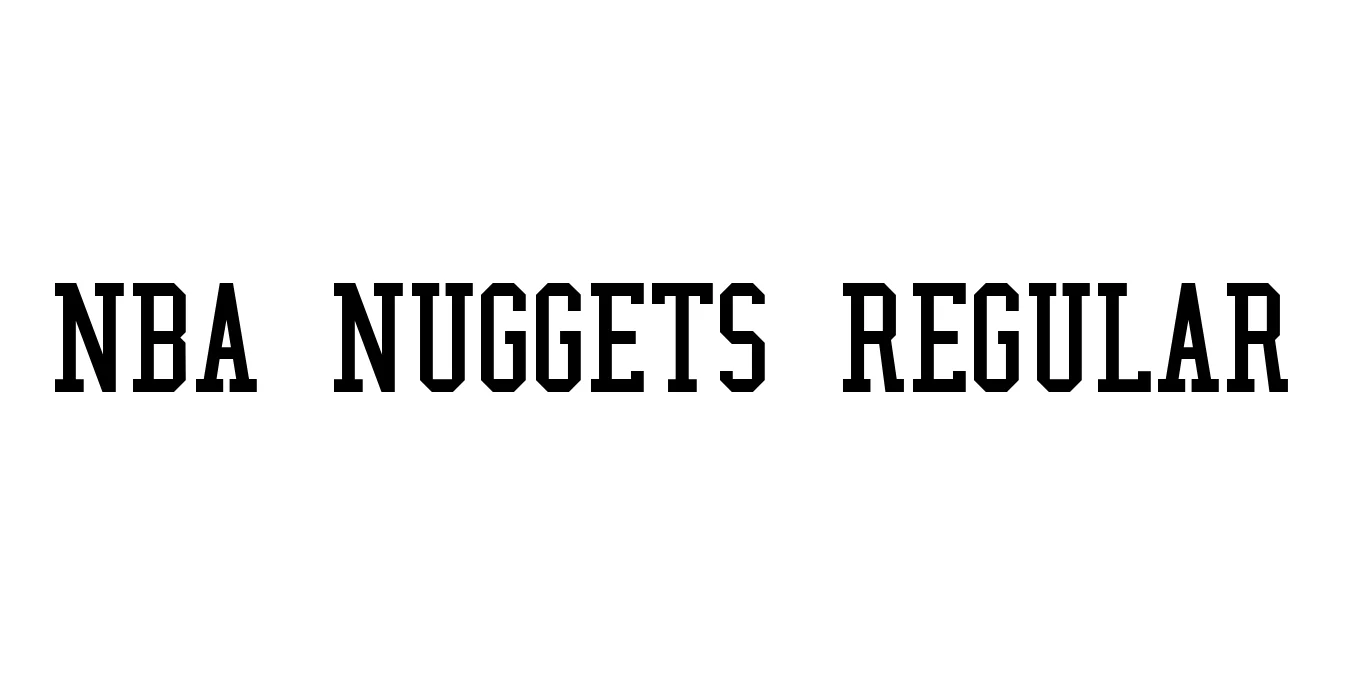
NBA Nuggets Regular
Designed by Unknown (Fan-made recreation)
| Font Name | NBA Nuggets |
| Category | Display / Sports |
| Designer | Unknown (Fan-made recreation) |
The NBA Nuggets Regular font is a custom display typeface inspired by the modern branding and visual identity of the Denver Nuggets professional basketball team. This font captures the rugged, western-inspired aesthetic of the Mile High City, featuring sharp, chiseled slabs and bold, geometric forms that reflect the team's iconic pickaxe and mountain motifs. It is designed to evoke a sense of strength and athletic prowess, making it a staple for fans and designers looking to recreate the professional look of NBA merchandise.
Functionally, the typeface belongs to the slab serif or block athletic category. Its heavy weight and distinct horizontal emphasis ensure high readability from a distance, which is crucial for sports broadcasting and jersey identification. While the original team typography is a proprietary brand asset, this digital recreation allows enthusiasts to use similar letterforms for community projects, fan art, and themed event materials that celebrate the spirit of Colorado basketball.
NBA Nuggets Regular Best Uses
Creating promotional posters and banners for basketball tournaments and fan events.
Customizing jerseys, t-shirts, and caps with a professional team look.
Designing bold headlines and score graphics for sports-themed accounts.
Developing UI elements for sports management or basketball simulation games.